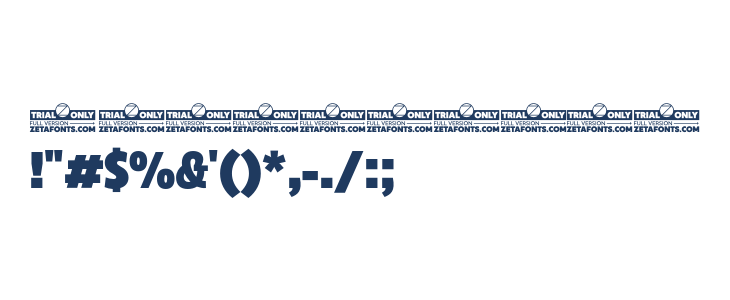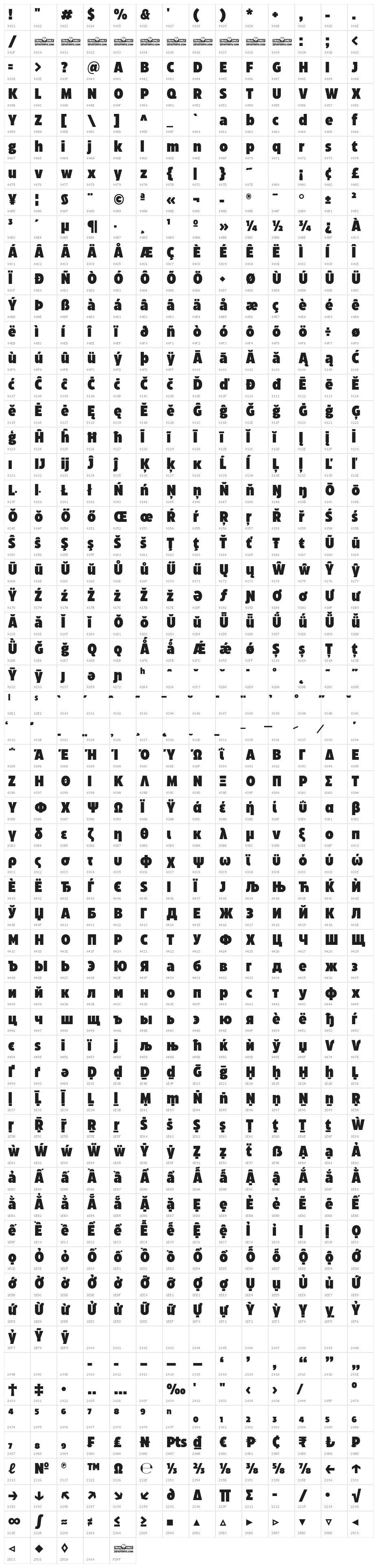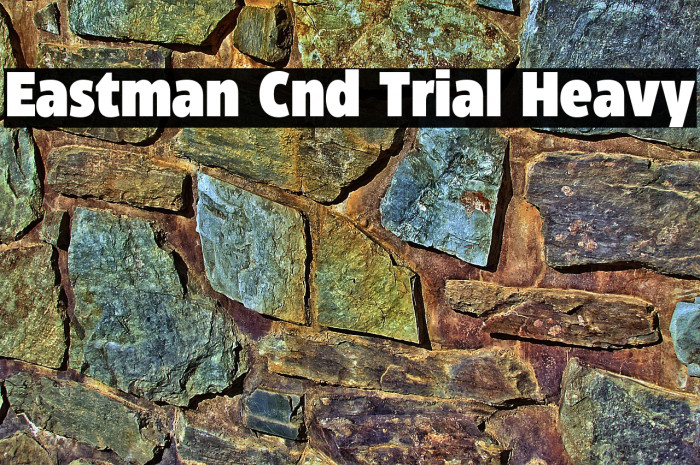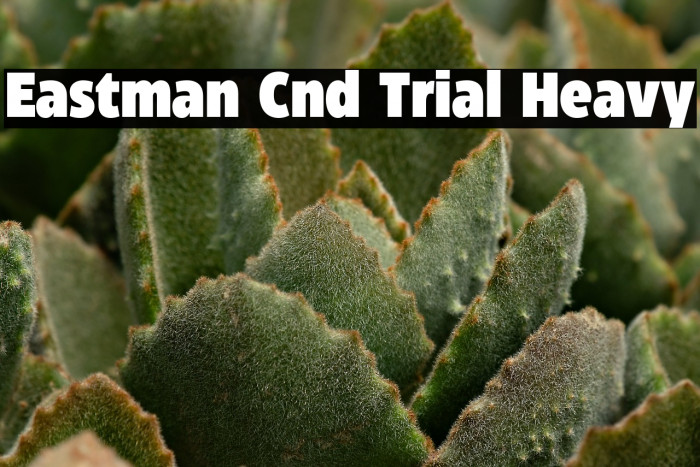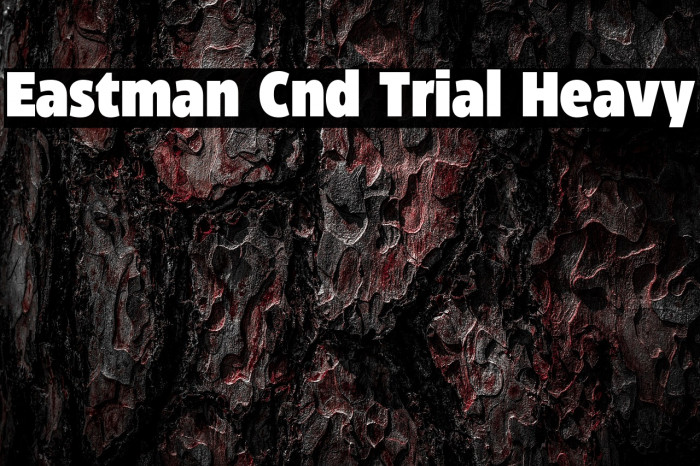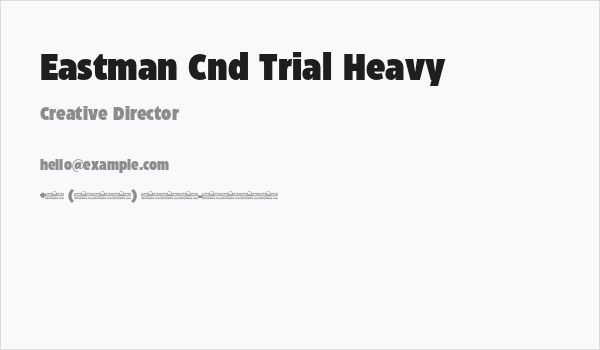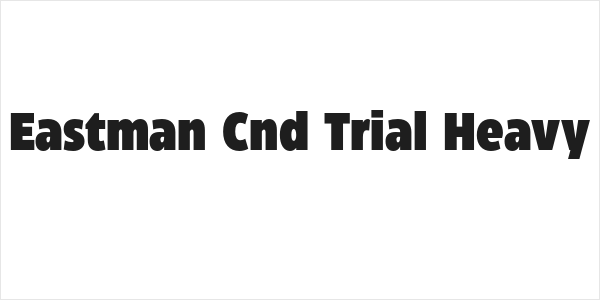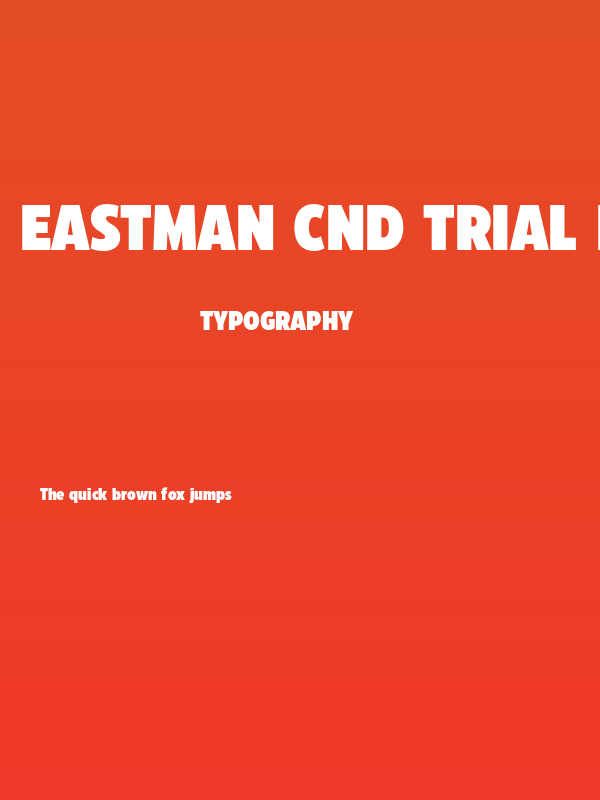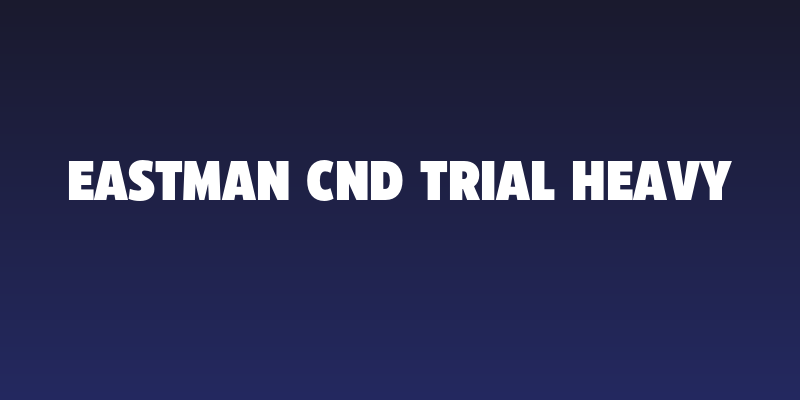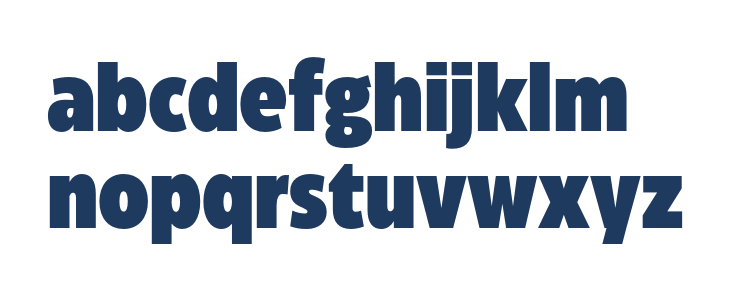
Eastman Cnd Trial Heavy Font
Eastman Cnd Trial Heavy Description
This font features a bold and heavy design with strong, impactful letterforms. The characters are condensed, giving them a compact appearance that maximizes space efficiency while maintaining readability. The strokes are thick and uniform, providing a sense of stability and strength. The uppercase and lowercase letters are well-proportioned, with a consistent height and width that ensures a cohesive look. The font includes a full set of numerals and a variety of special characters, making it versatile for different design needs. Its bold nature makes it ideal for grabbing attention and making a statement.
Proposed ProjectsIdeal for headlines, posters, branding, and advertising where a strong visual impact is needed.